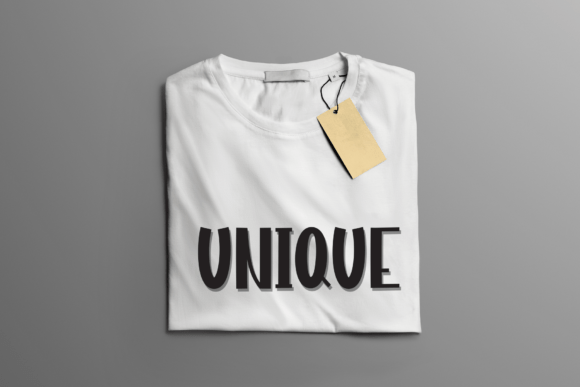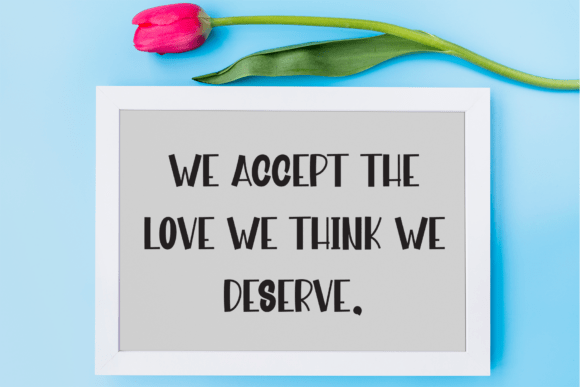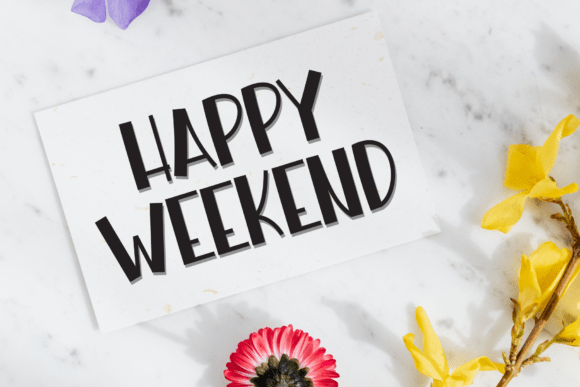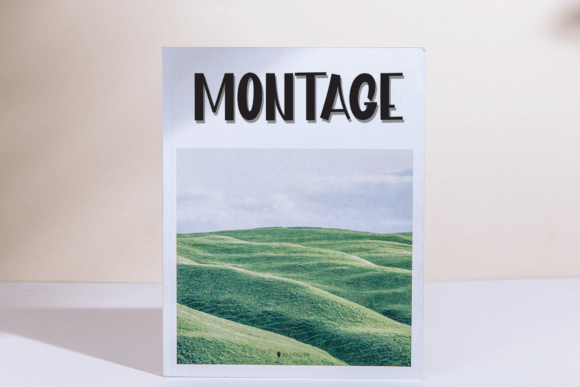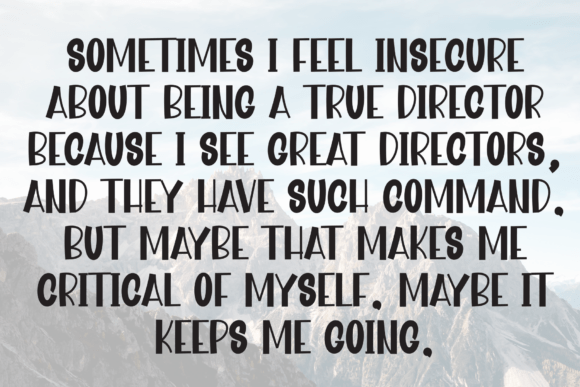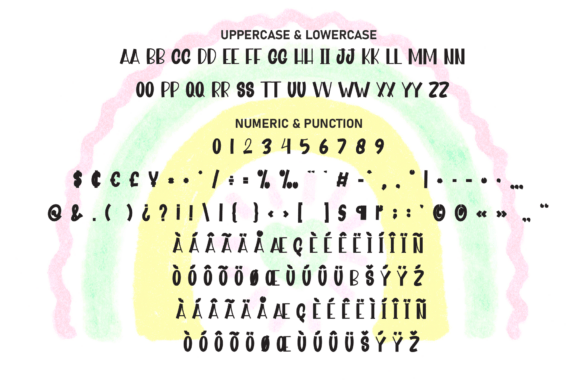
Introduction to Doodle Rainbow Font
As designers, we’ve all been there – staring at a blank canvas, trying to bring our creative vision to life. But what happens when that spark of inspiration hits, and you know exactly the font to use? For me, it was the moment I laid eyes on the Doodle Rainbow Font. Its playful, approachable vibe immediately captured my attention, and I knew I had to learn more.
With its clean lines, balanced letterforms, and subtle rounded edges, the Doodle Rainbow Font is a true gem for designers. Whether you’re working on a branding project, crafting headlines for a marketing campaign, or simply need a design resource for your next creative project, this font is a valuable asset to have in your toolkit. And the best part? It’s available for free download, making it an accessible high-quality design resource for designers of all levels.
But what truly sets the Doodle Rainbow Font apart is its versatility – from digital content to packaging, this font delivers clarity and charm in equal measure, with a transparent background that makes it perfect for any design project.
Key Features of Doodle Rainbow Font
- Unique, hand-drawn design with a playful and whimsical feel, perfect for creative projects.
- High-quality font with transparent background, allowing for seamless integration into any design.
- Includes multiple styles and weights, providing versatility for use in different creative projects.
- Perfect for use in illustrations, graphics, and other creative projects where a unique, hand-drawn feel is desired.
Honest Review: Doodle Rainbow Font
I recently had the chance to play around with the Doodle Rainbow Font, and I must say it’s a real treat for designers. The moment I saw its vibrant, hand-drawn style, I knew it would be perfect for a creative project that needed a bit of whimsy.
- High-quality design that’s full of character and charm.
- Perfect for adding a pop of color and personality to any design.
- Can be used on a transparent background, giving you the flexibility to use it in a variety of design contexts.
One thing to note is that the Doodle Rainbow Font is a bit more suited for digital designs, as it may not be as effective when printed at large sizes.
Overall, I’m really impressed with the Doodle Rainbow Font. It’s a fantastic design resource that’s perfect for designers looking to add some creativity and personality to their projects. With its high-quality design and flexibility, it’s definitely worth checking out.
Common Use Cases for the Doodle Rainbow Font
The Doodle Rainbow Font is ideal for use in creative projects that require a playful and colorful touch, such as children’s books, party invitations, and social media graphics. Its transparent background feature makes it perfect for overlaying on images.